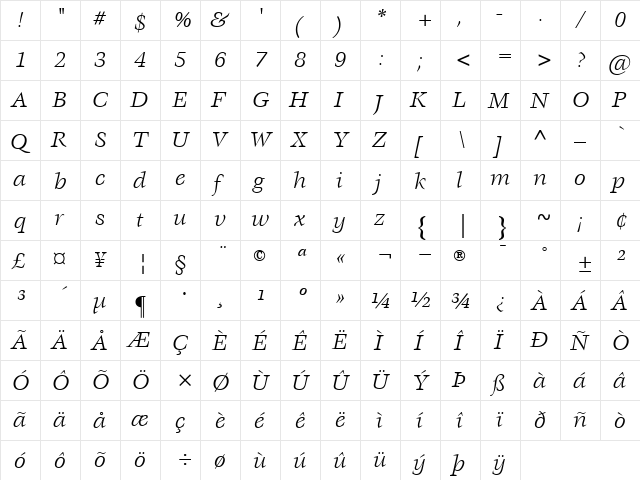
ITCVeljovic-Book BookItalic
Design Context for ITCVeljovic-Book Typeface
ITCVeljovic-Book is a composed and adaptable typeface that performs quietly and consistently across a wide range of design contexts. Its italic angle brings a sense of urgency and motion to the letterforms.